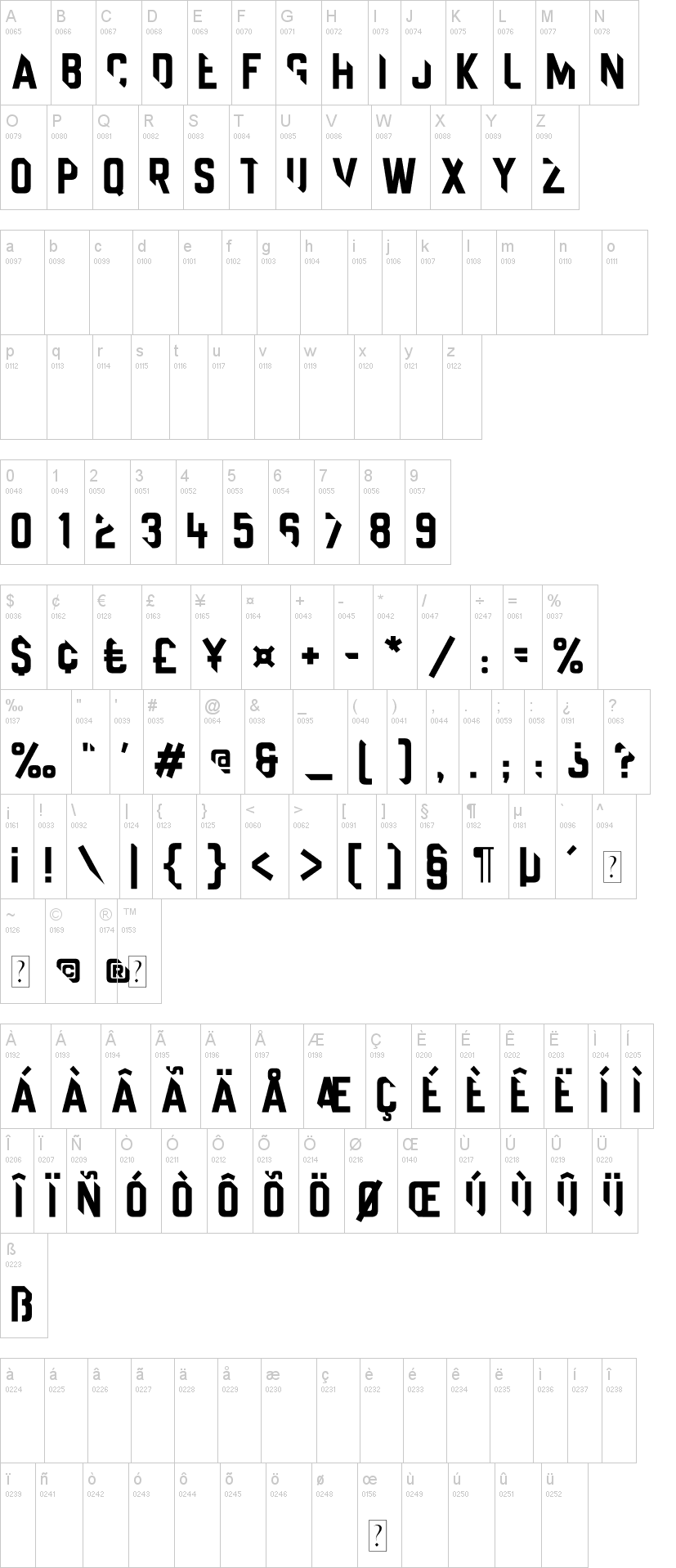
ignorance
Unleash Creativity with Ignorance Font
Ignorance Font, crafted by renowned designer John Smith in 2022, offers a bold and stylized typeface that is perfect for standing out in any creative project. Its distinct character shapes are designed to draw attention, making it an excellent choice for advertising, promotional materials, and artistic designs.
Exploring the Features and Formats of Ignorance Font
The Inspiration Behind Ignorance Font
Inspired by modern artistic movements, Ignorance Font represents an avant-garde approach to typography. John Smith’s vision to merge bold expression with functionality has resulted in a font that embodies innovation and creativity, making it a standout selection for designers looking to make a statement.
Perfect Use Cases for Ignorance Font
Ideal for use in branding, poster designs, and digital artwork, Ignorance Font excels in settings where a striking visual impact is needed. Its unique style caters to designers who wish to convey strong messages or create memorable brand identities.